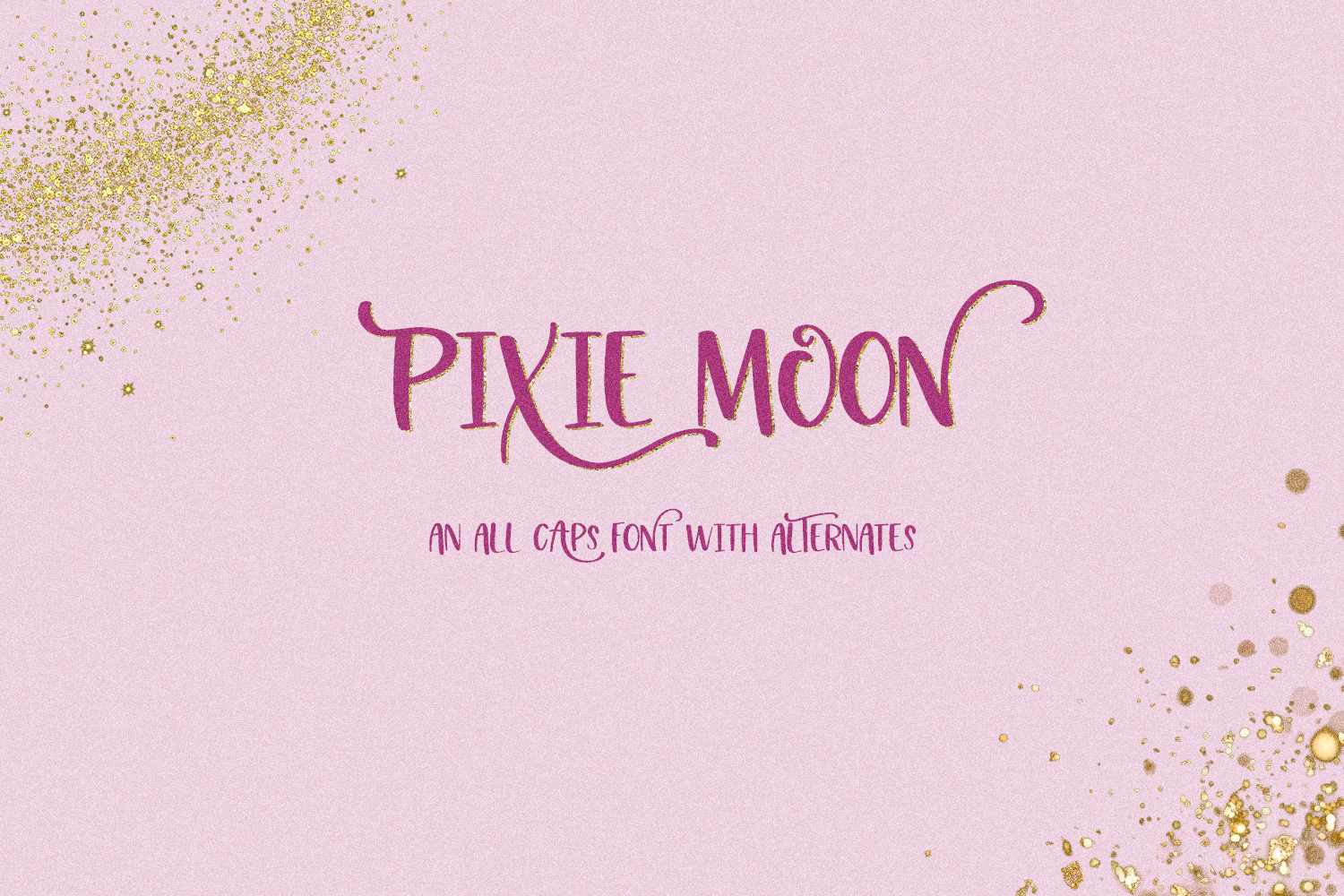
Pixie Moon Sans with Flourishes
Pixie Moon Sans is an all-caps hand lettered font. This font includes flows, flourished alternate characters that add a whimsical, fairy-like aesthetic. This font is fantastic for logos & branding, greeting cards, painted banners, digital planners, note-taking apps, Canva, Cricut projects, Silhouette projects, designing SVG files, laser cutting projects, & more.
- 28 alternate characters